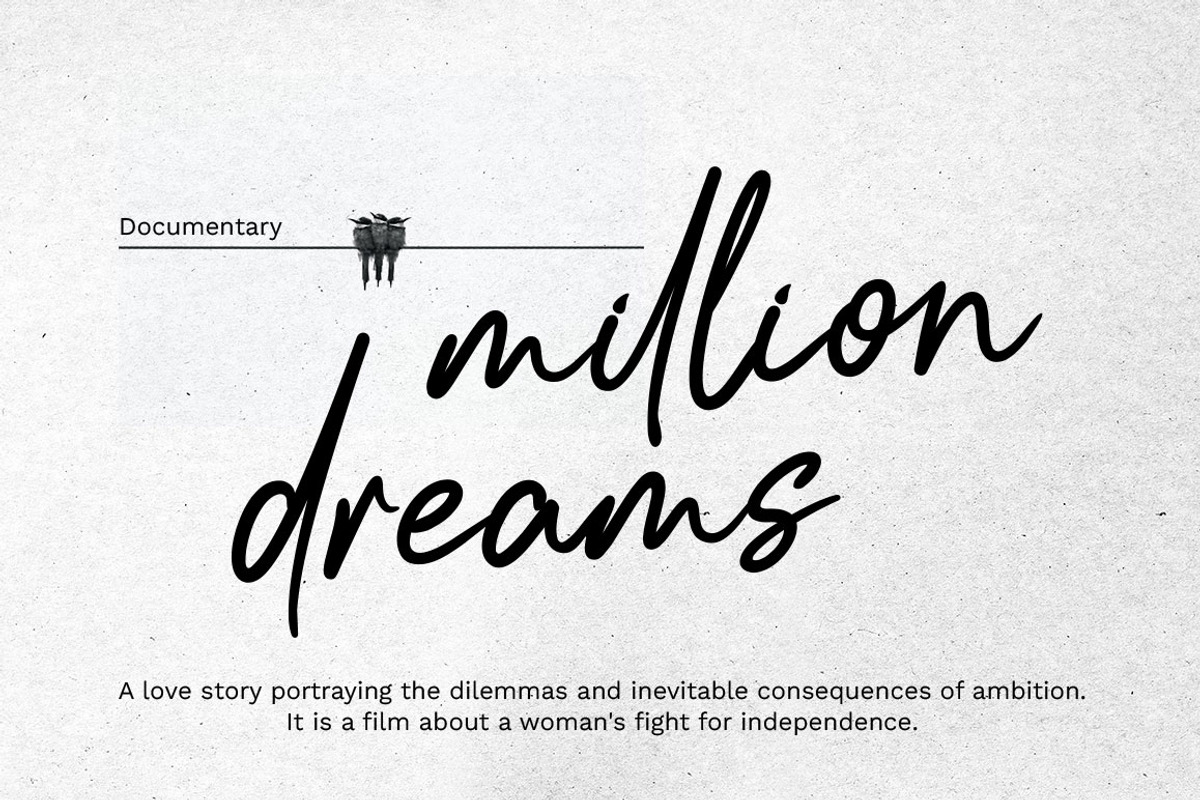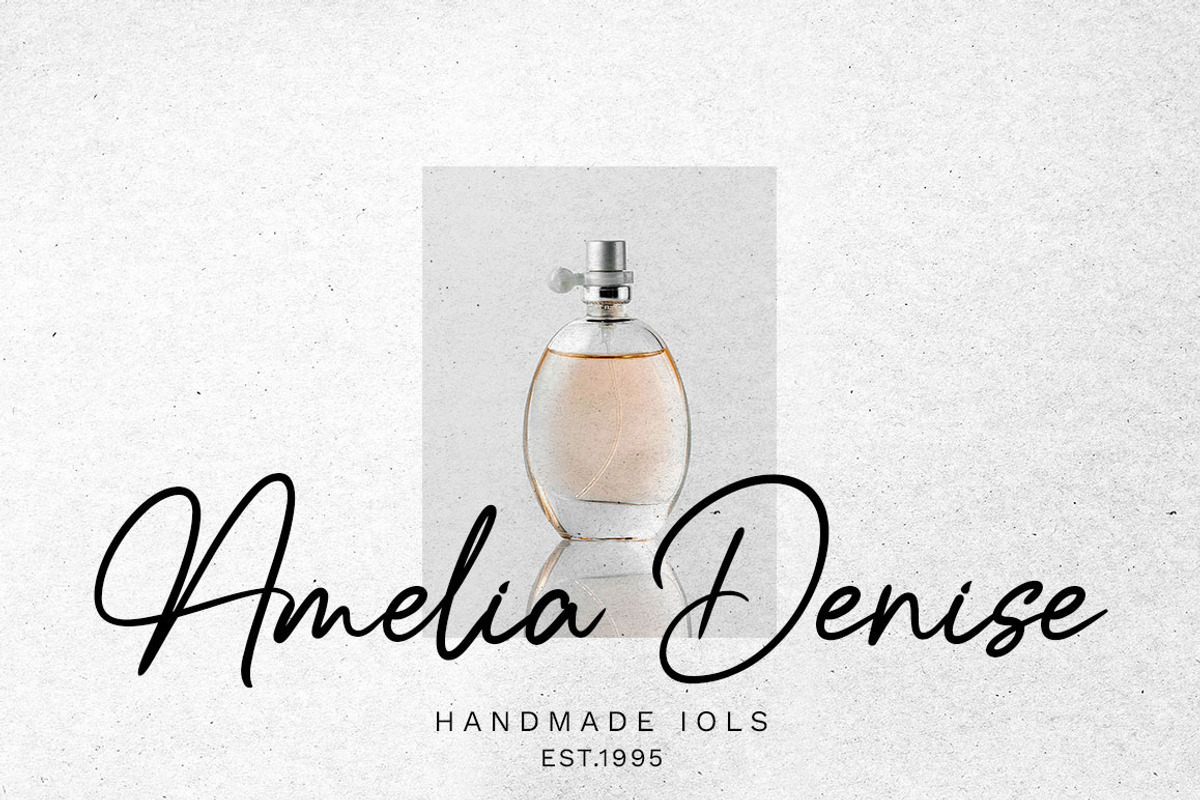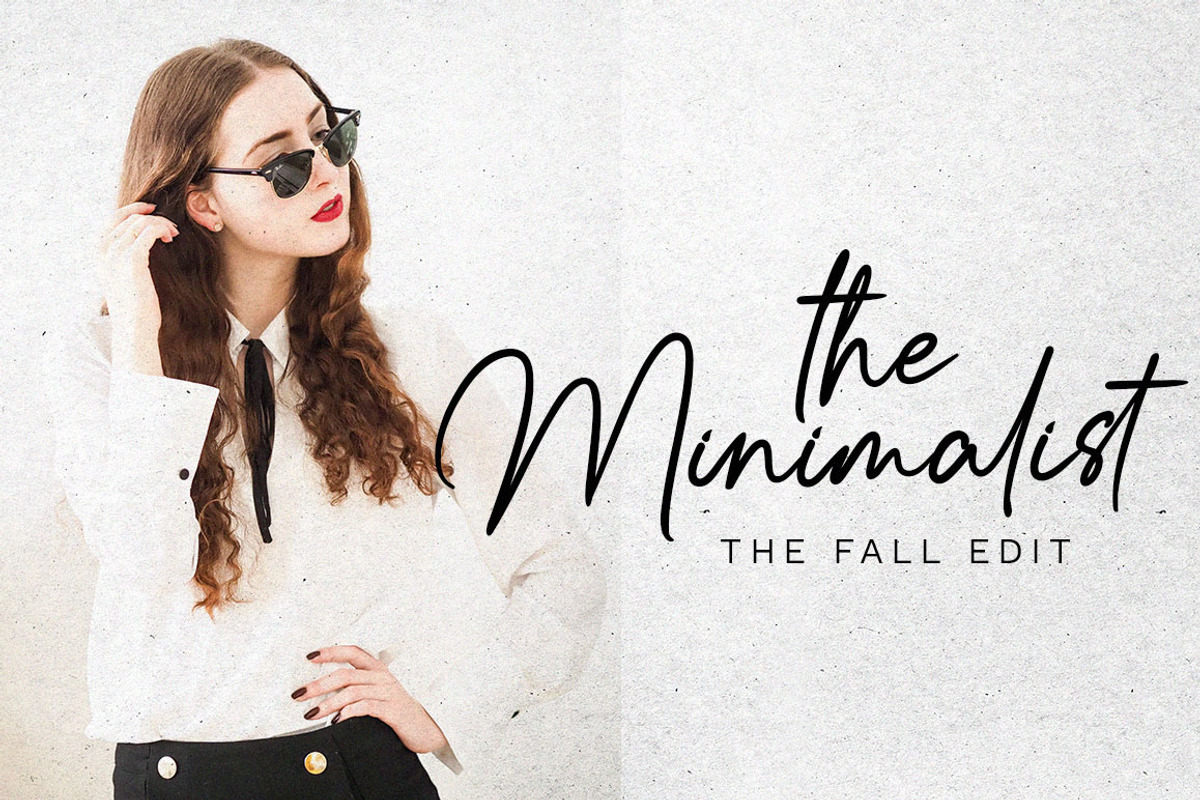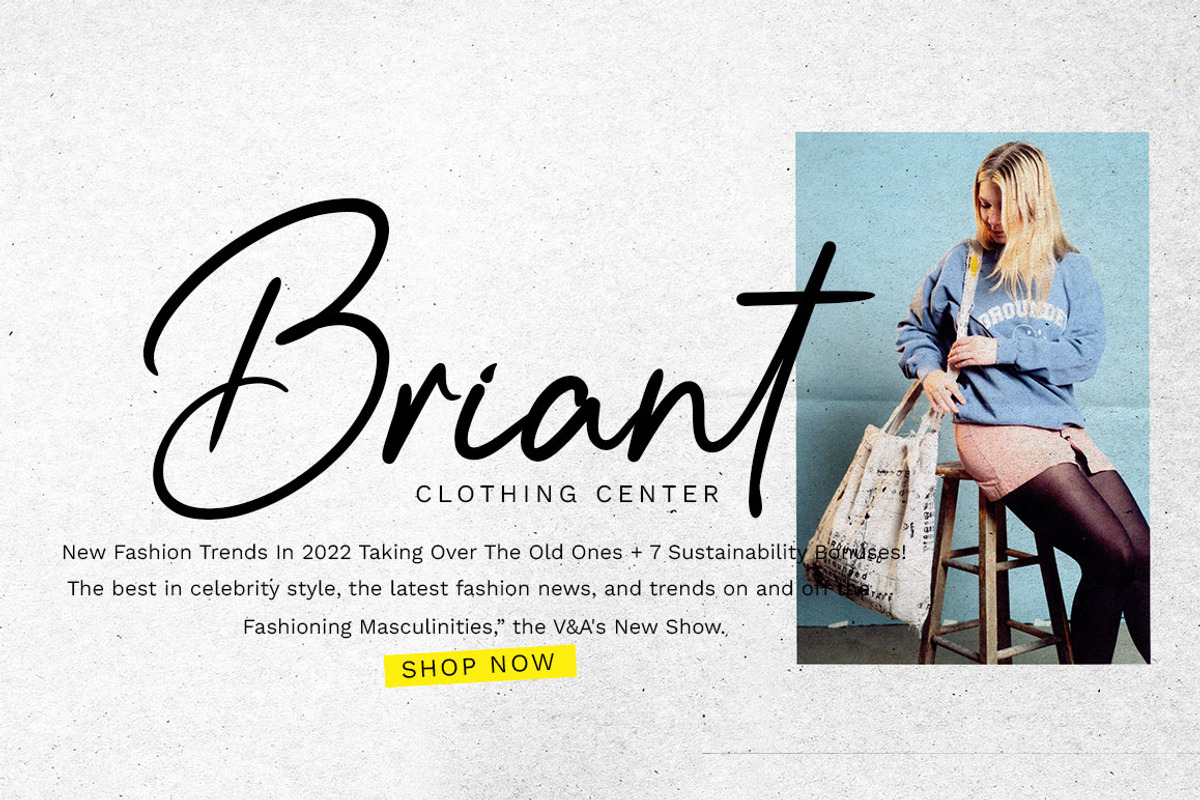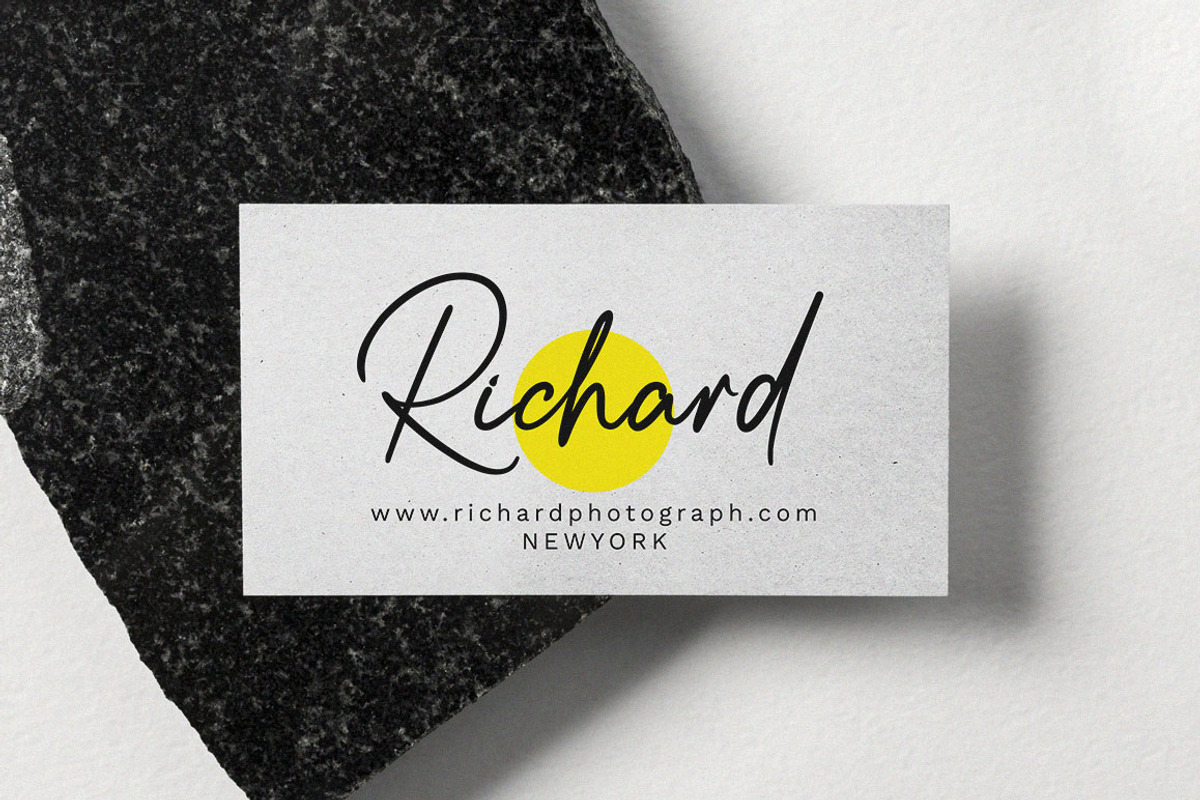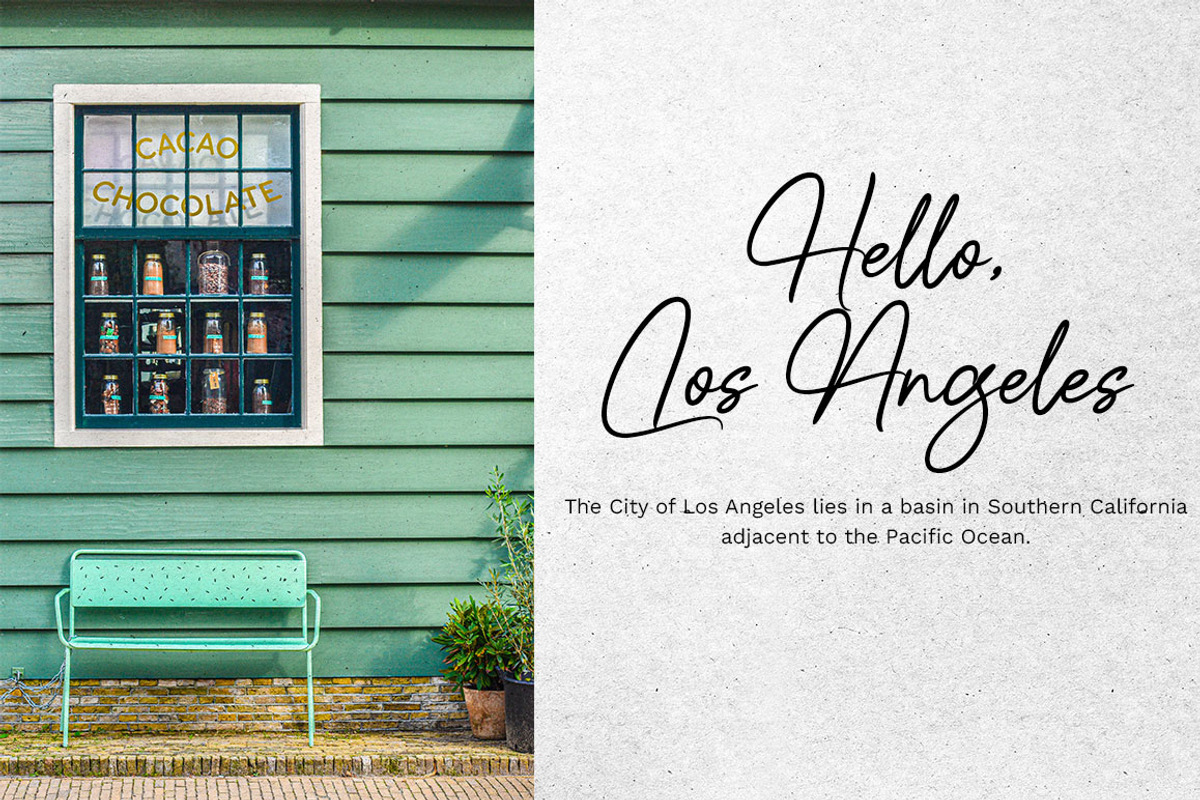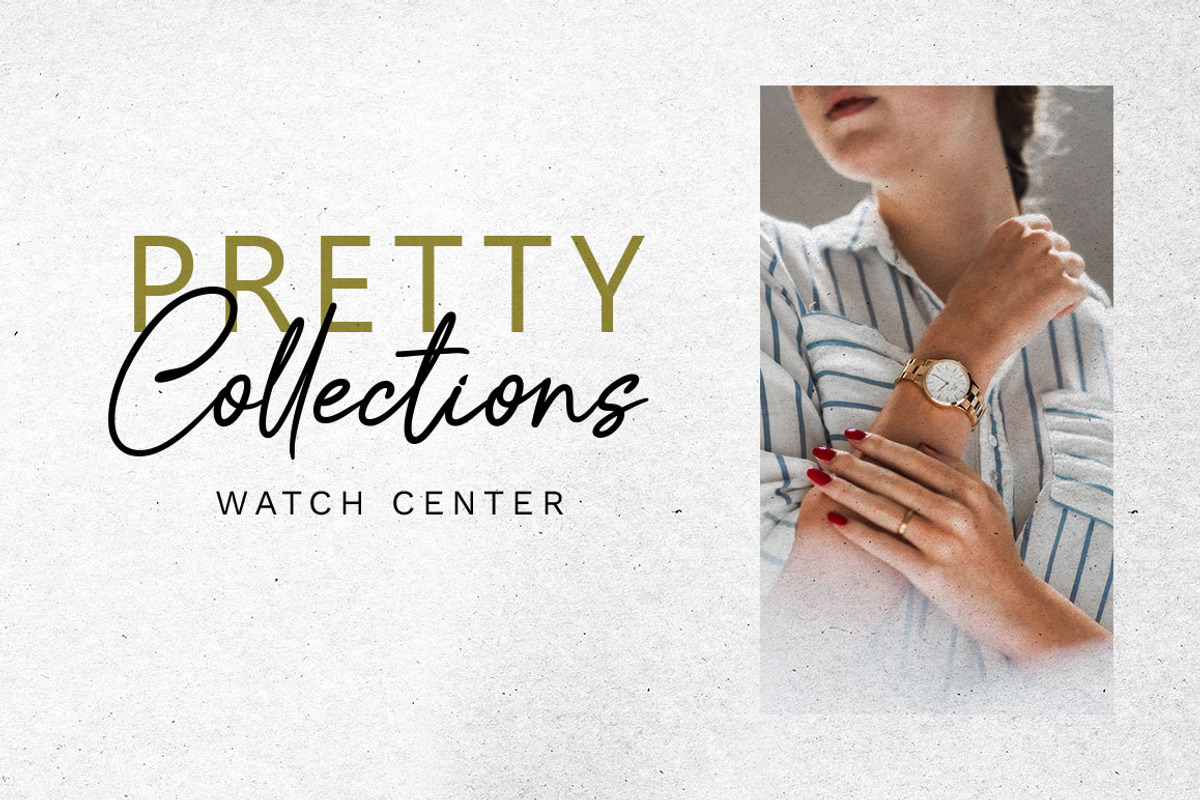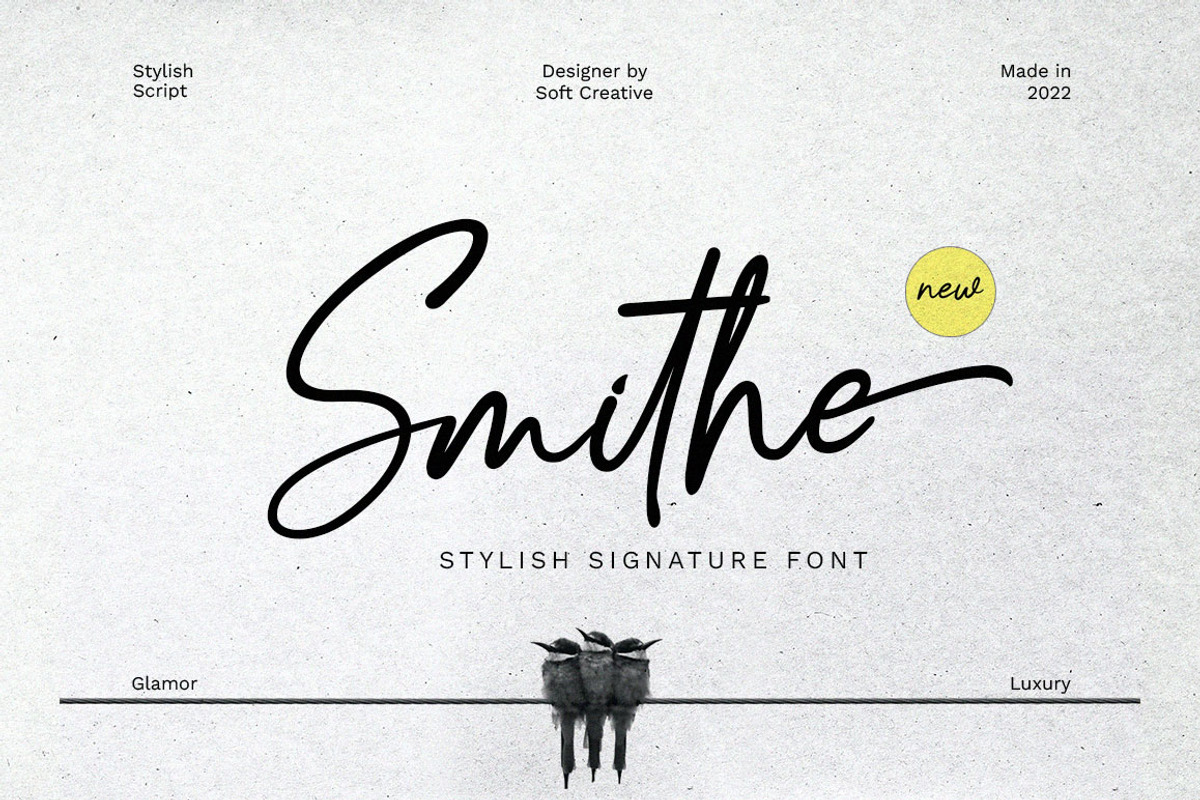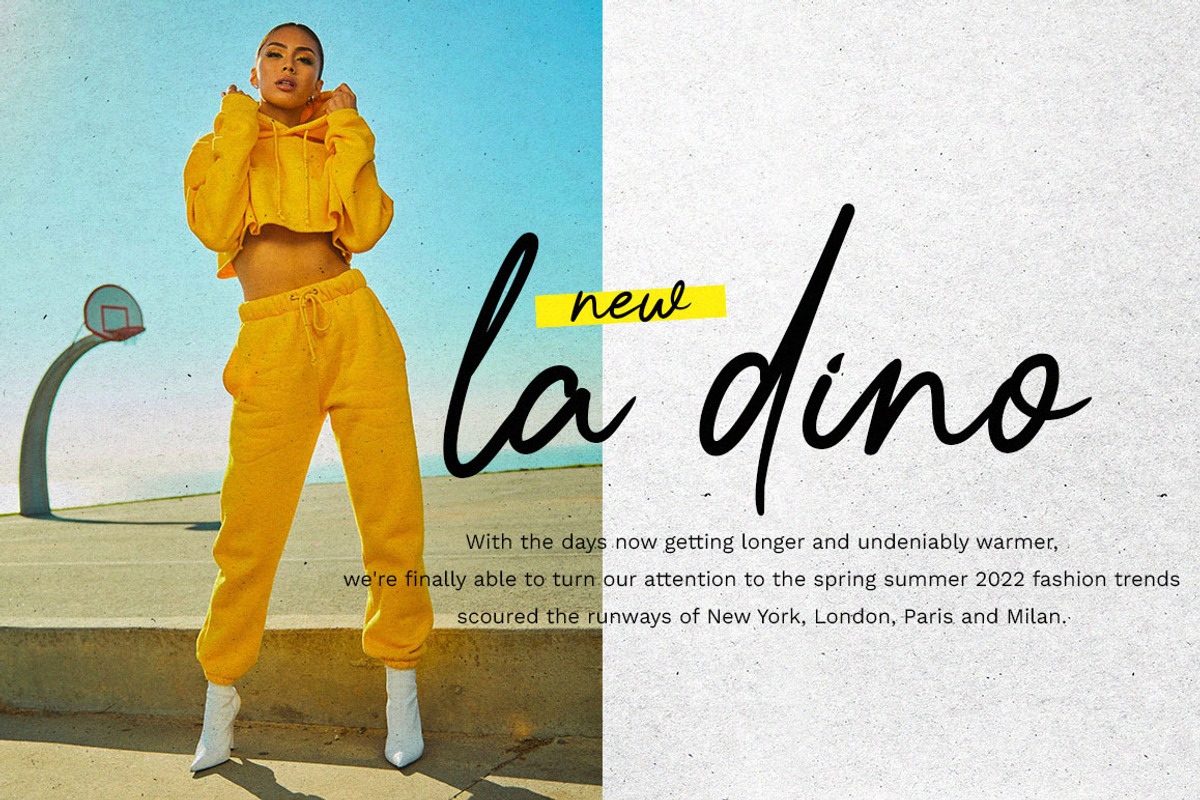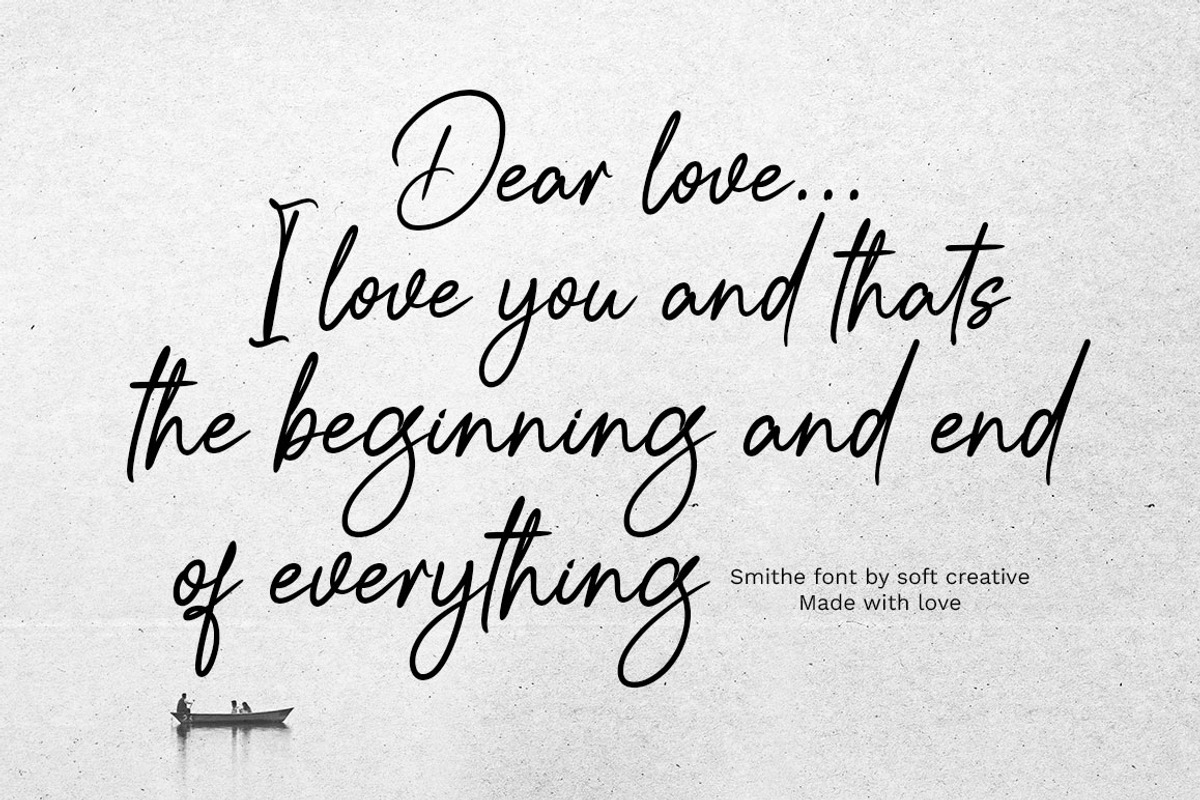
Smithe Signature
Introducing the Smithe Signature font.
Smithe's Signature Font, is a classic thin font with an italic style. Here you will get beautiful classic fonts. this font is available in several modern swirls that can make your work look elegant, sweet and perfect.
With this style, this font would be perfect for logos, branding projects, household designs utensils, product packaging, mugs, quotes, posters, shopping bags, logo, t-shirt, book cover, business card, invitation card, greeting cards, and all your other beautiful projects.
Smithe Signature Fonts, including various language support. You can use this font for your work very much easily. Because there are many features in it. Contains a complete set uppercase and lowercase letters, punctuation, numbers and multilingual support. This font also includes several ligatures and alternatives style Set Style For those of you who have capable software OpenType work (Corel Draw / Photoshop / Illustrator / InDesign).